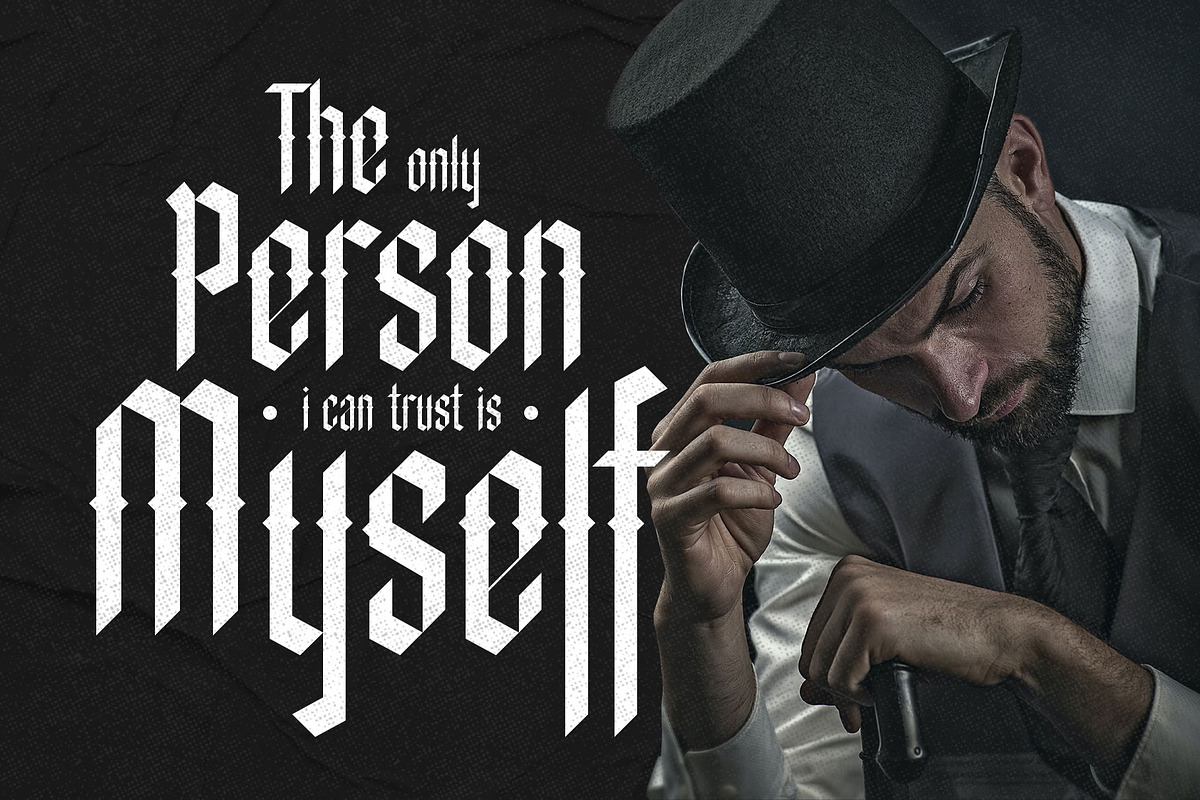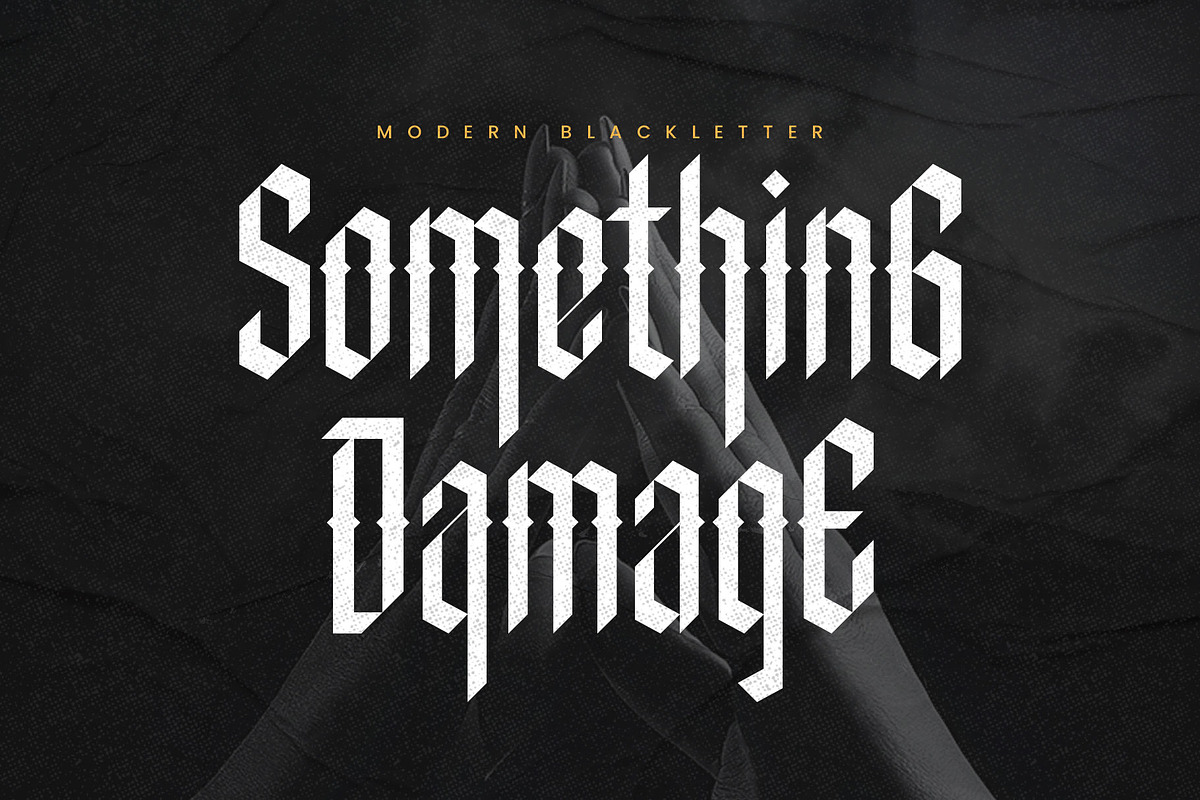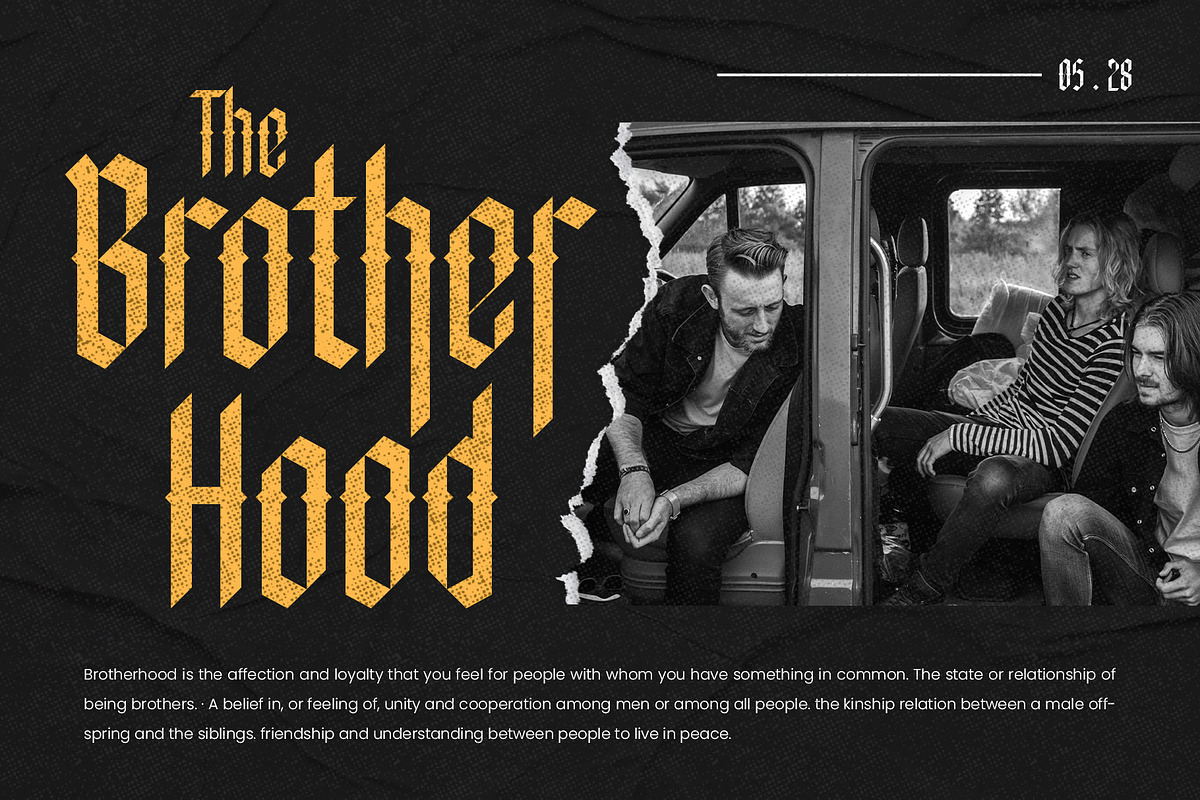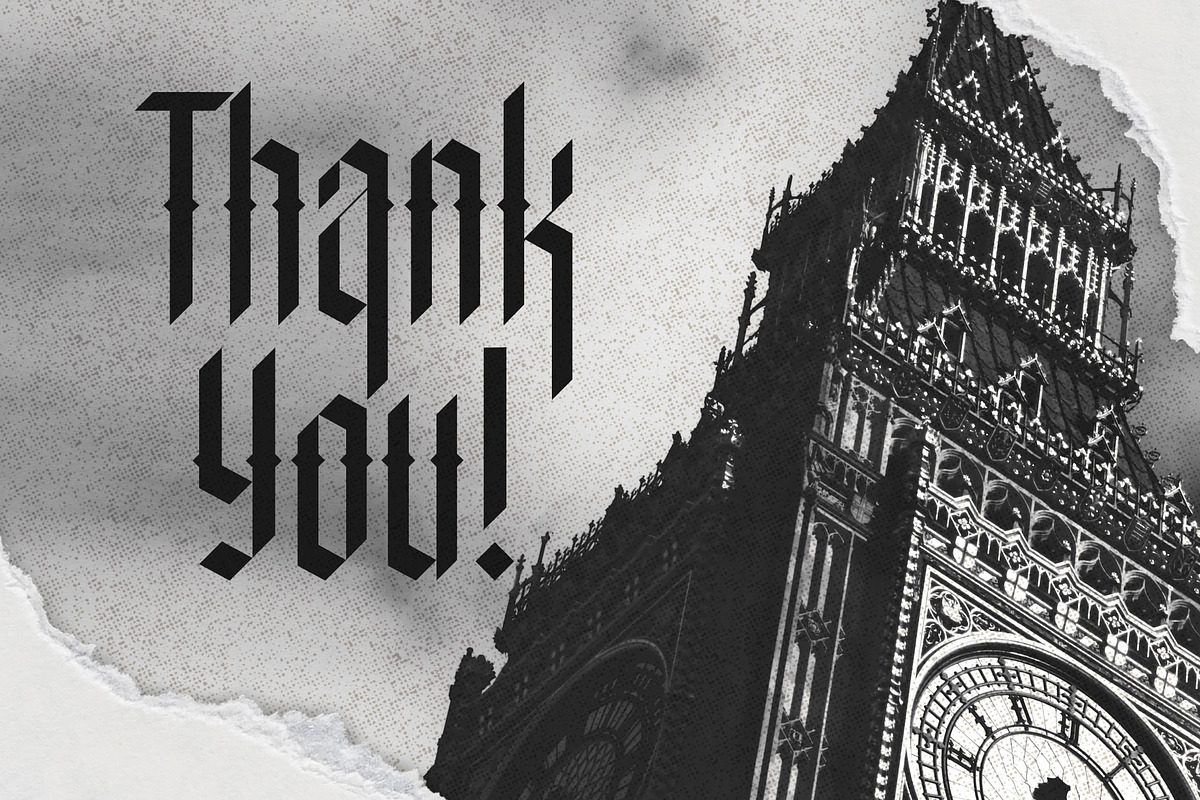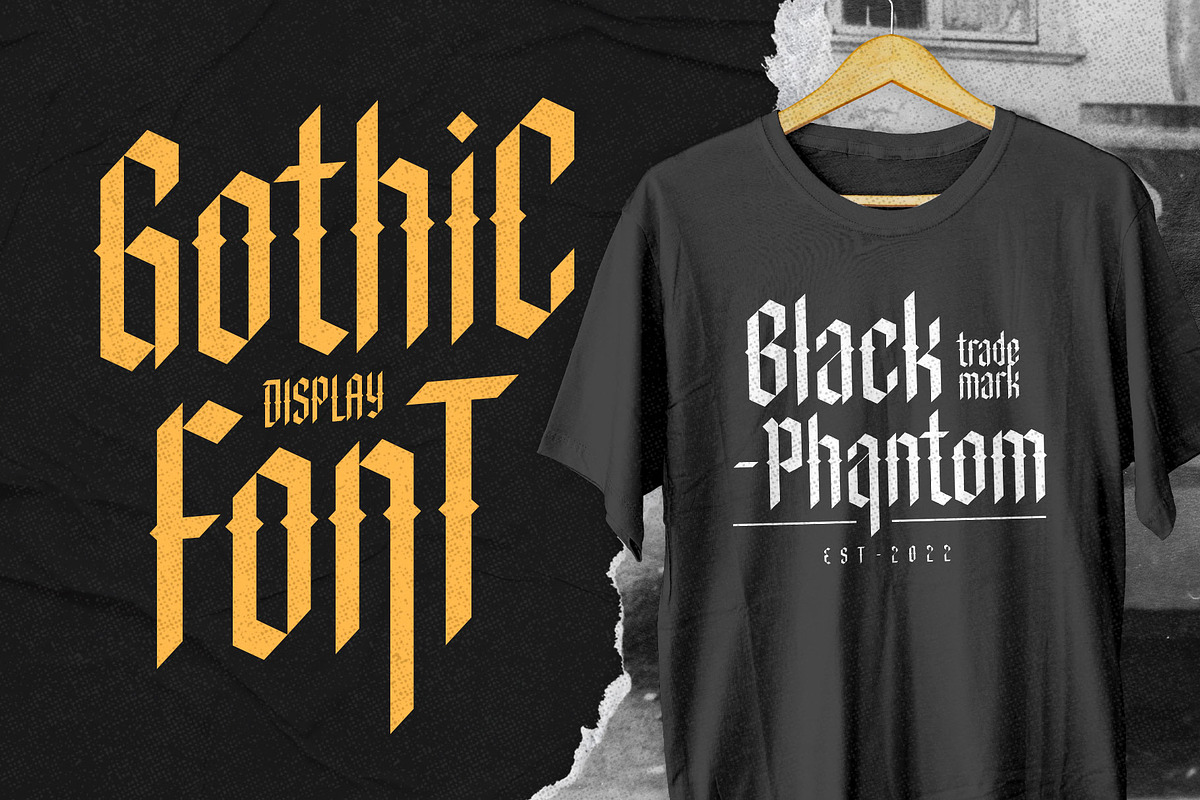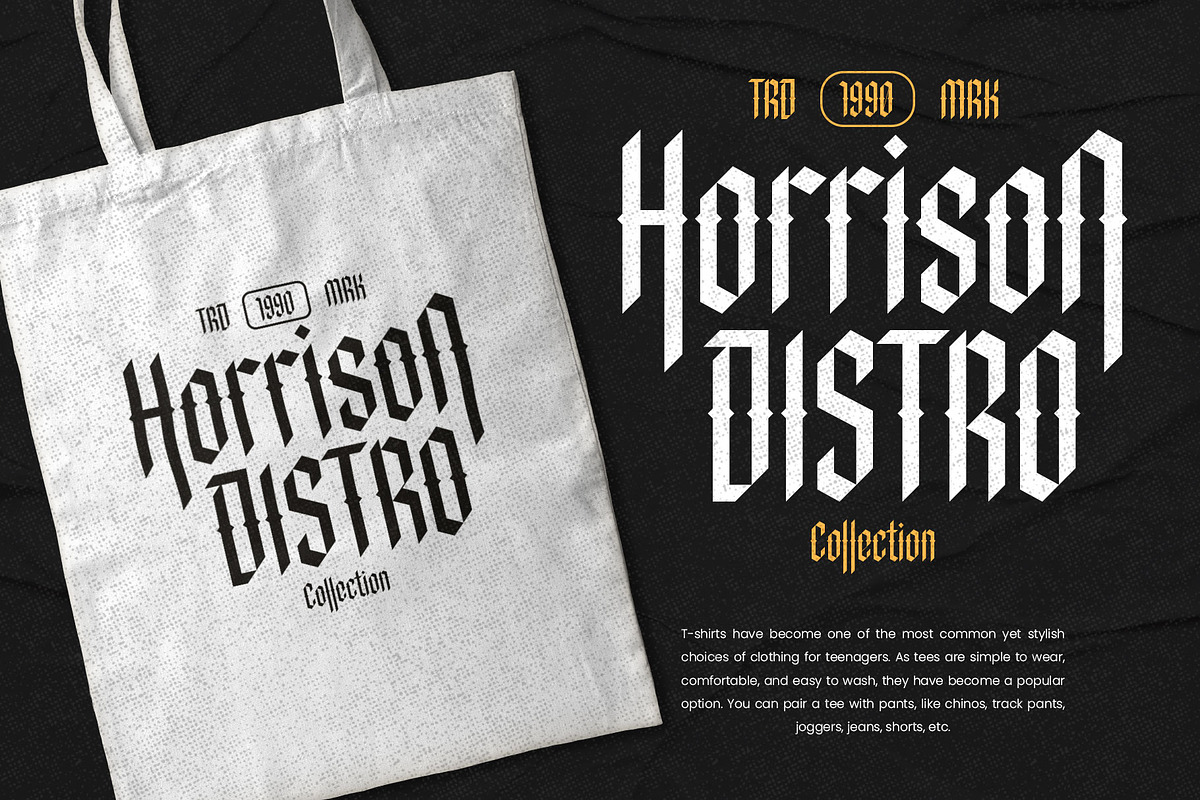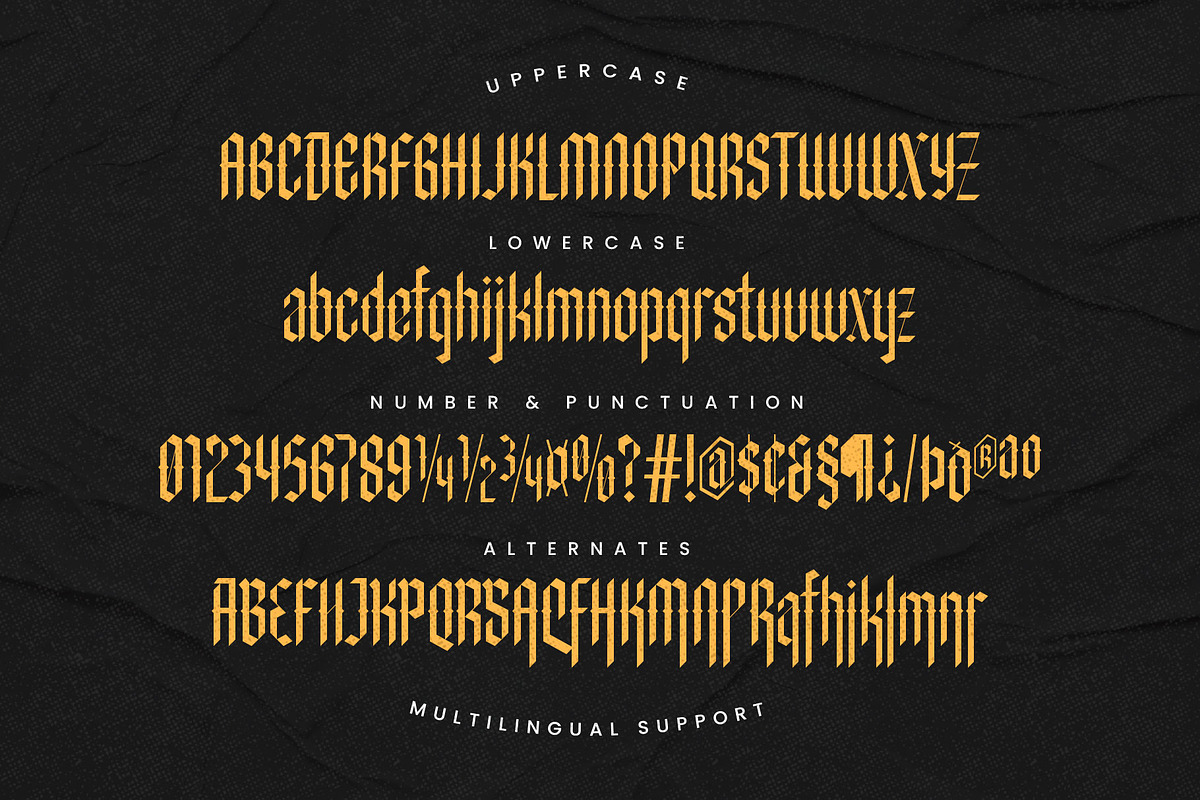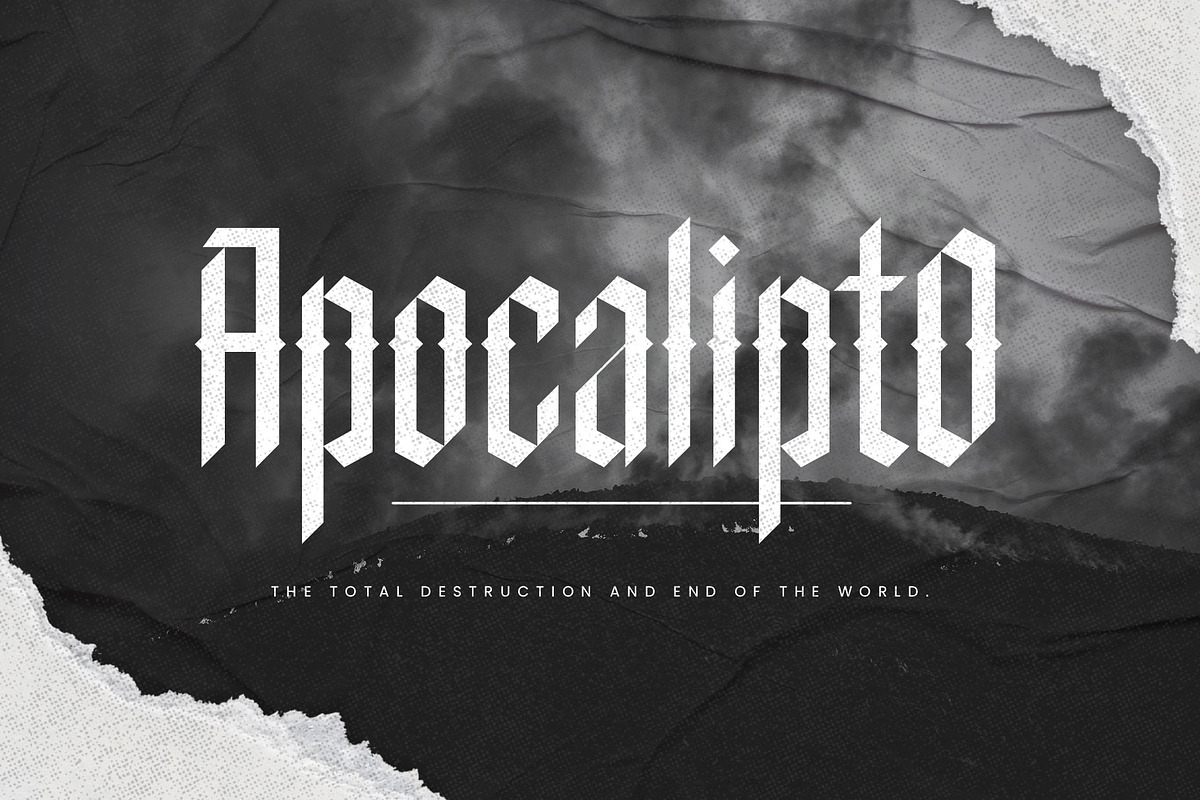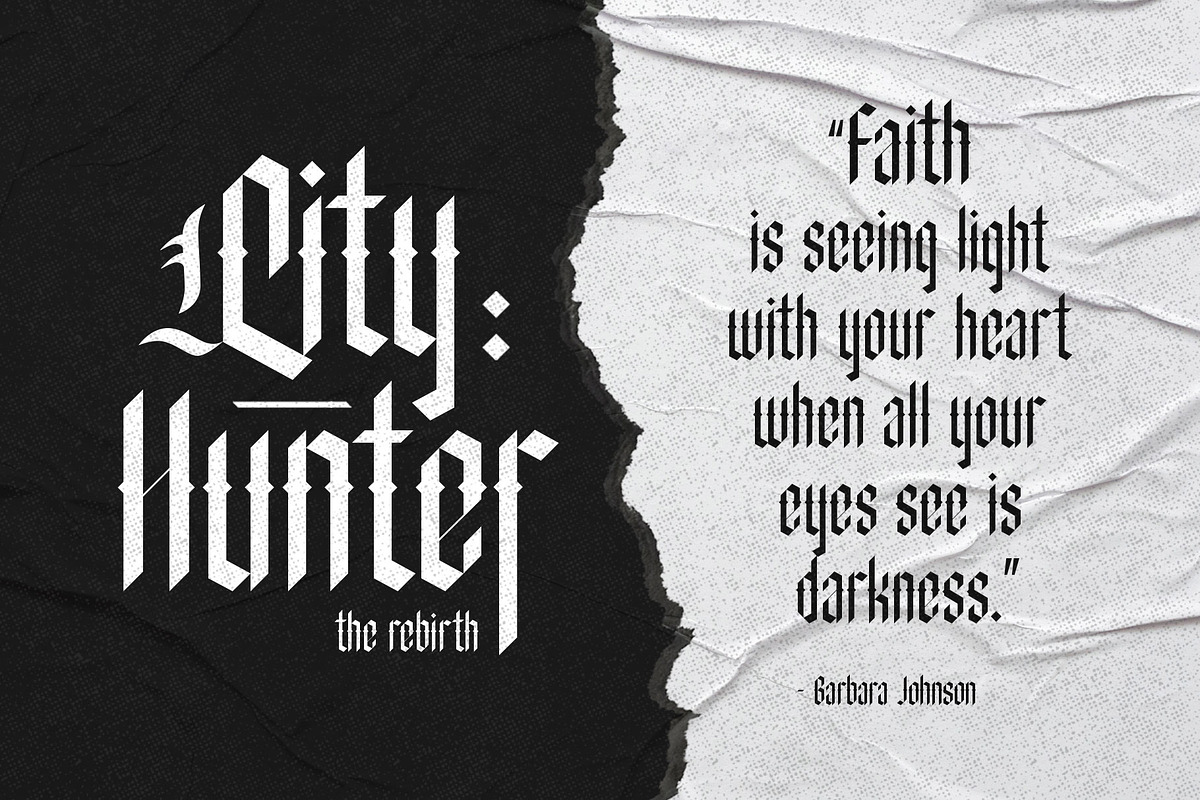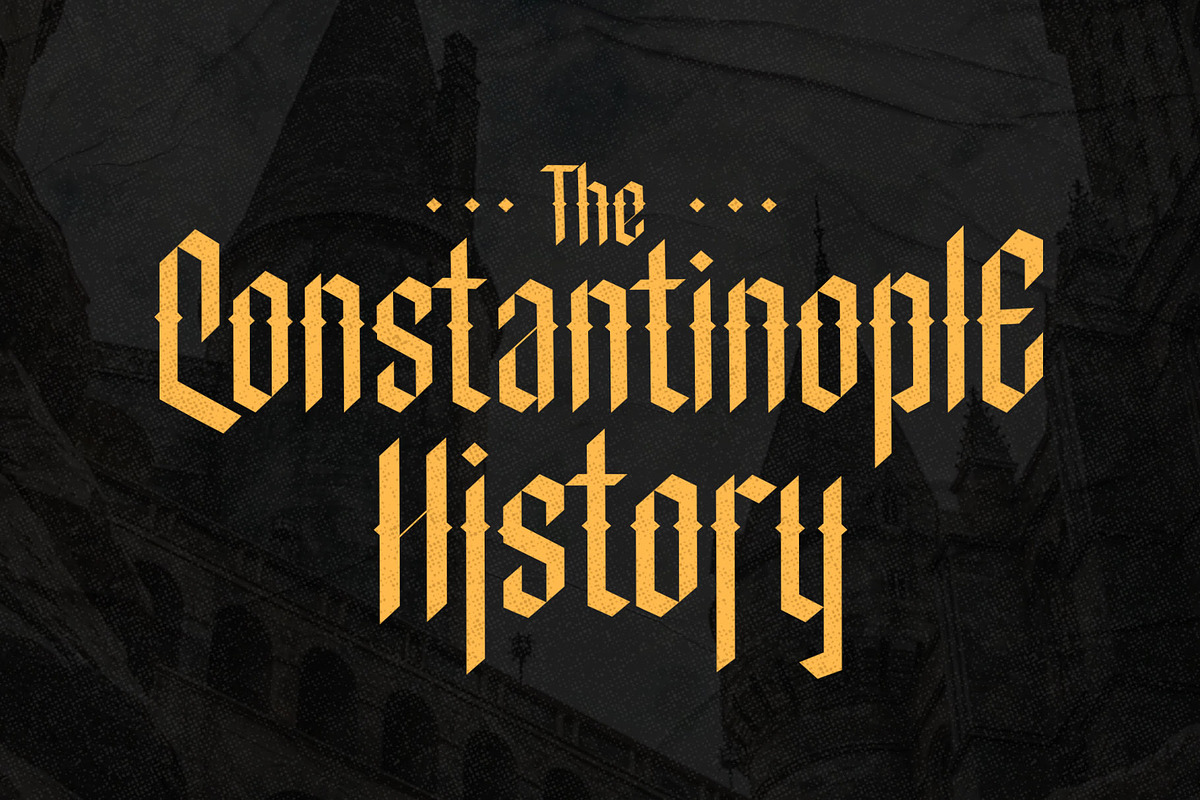
Something Damage - Blackletter
Something Damage is modern blackletter font. With condensed letterforms, and sharp edges, this font was created with a combination of geometric shapes and flat pen flows from the blackletter calligraphy.
This font is a display font, suitable for headline, merchandise, and short quotes. Something Damage represents darkness, elegant, strong, and confidence with extra alternates characters, and multilingual support.
- Stylistic alternates